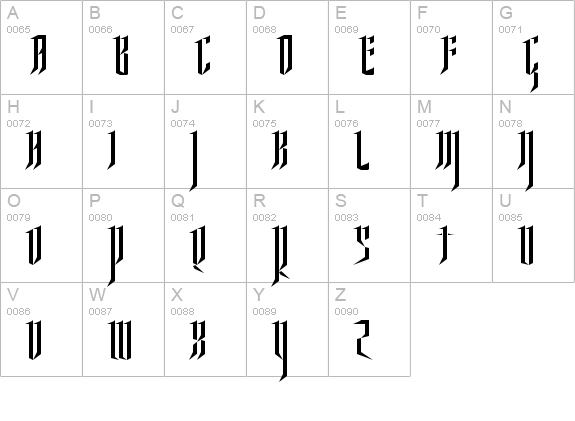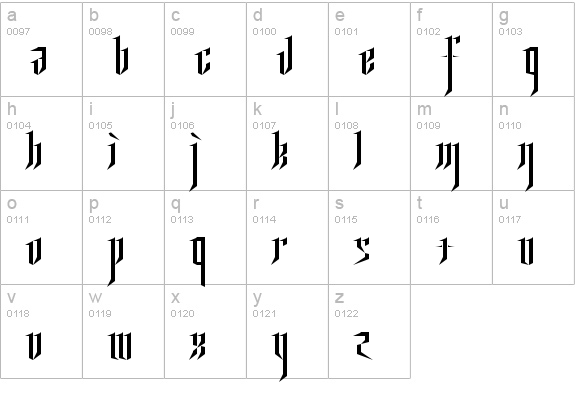
Ysgarth English Normal Font Details
Ysgarth English Normal is the standard, neutral variant in the Ysgarth typeface family \xE2\x80\x94 well suited to general body text, paragraphs, and standard typographic work.
Ysgarth English Normal font is a classic and versatile typeface that exudes elegance and sophistication. With its clean lines and timeless appeal, this font is perfect for a wide range of design projects, from branding to editorial layouts. What sets Ysgarth English Normal font apart is its ability to strike the perfect balance between modernity and tradition, making it a go-to choice for designers looking to make a lasting impression. Whether you're creating a sleek logo or crafting a stylish invitation, this font will elevate your designs to the next level. Best of all, Ysgarth English Normal font is available for free download at FontsMarket.com. So go ahead and add this stunning typeface to your collection today and start creating beautiful designs that stand out from the crowd.